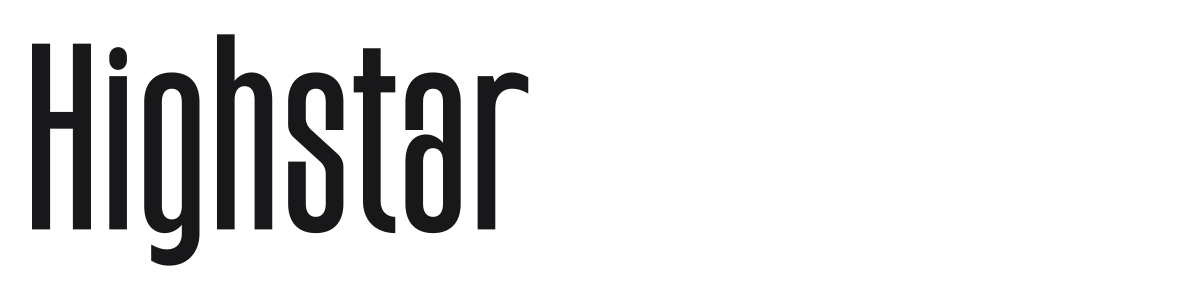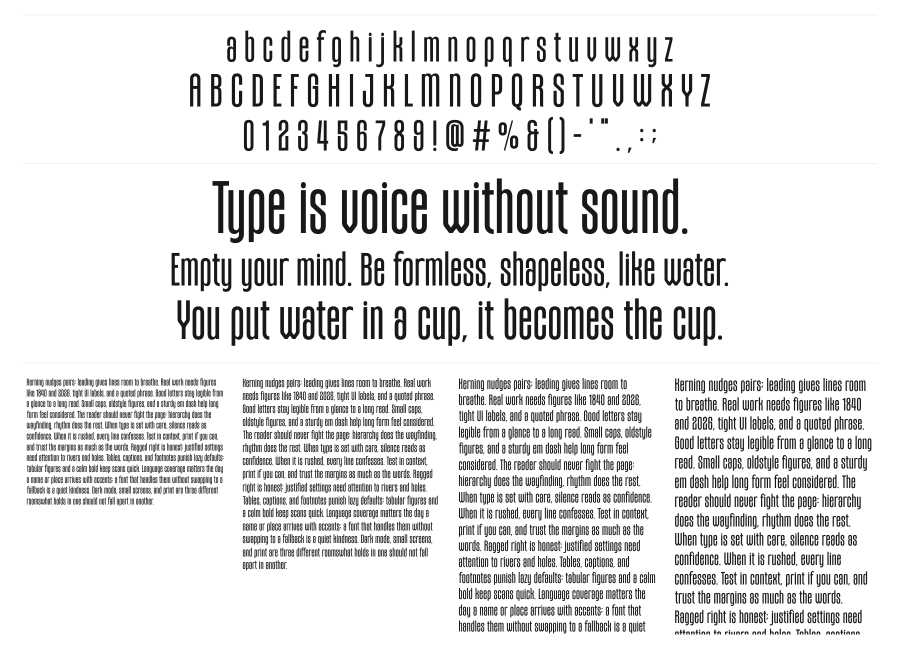
Highstar
Highstar is a tightly condensed bold grotesque with extreme narrow proportions and a clean, monoweight stroke. Its compressed silhouette packs serious visual weight into a small horizontal footprint, making it a natural choice for headlines, logos, and posters where space is tight but impact is non-negotiable. The closed apertures and flat terminals give it a distinctly contemporary urban edge.